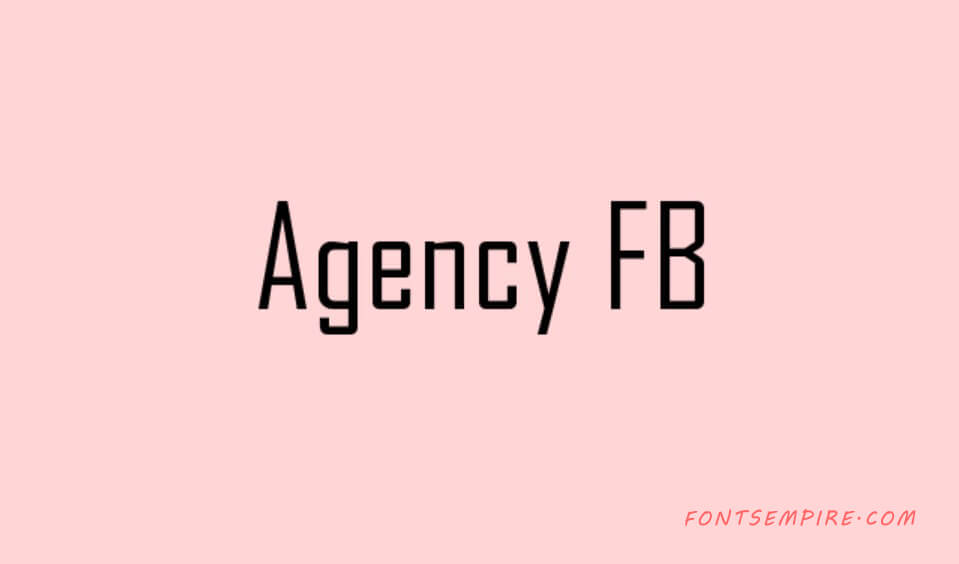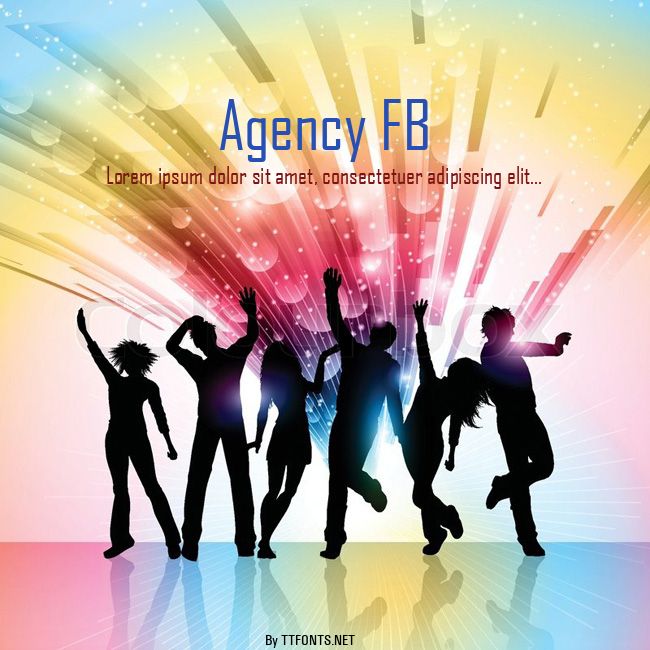
Agency Fb Font
Agency Fb Font - Atf agency gothic was designed by morris fuller benton in 1932 as a lone titling typeface. In 1990, david berlow saw potential in the squared forms of the. In 1990 david berlow saw potential in the squared forms of the. Complete family of 27 fonts: Agency fb font family was designed by david berlow, morris fuller benton and published by font. It is based on the original. Atf agency gothic was designed by m.f. Benton in 1932 as a single titling face. Web individual styles from $40.00.
Web individual styles from $40.00. In 1990, david berlow saw potential in the squared forms of the. Agency fb font family was designed by david berlow, morris fuller benton and published by font. Atf agency gothic was designed by morris fuller benton in 1932 as a lone titling typeface. It is based on the original. Atf agency gothic was designed by m.f. Benton in 1932 as a single titling face. In 1990 david berlow saw potential in the squared forms of the. Complete family of 27 fonts:
Atf agency gothic was designed by m.f. Atf agency gothic was designed by morris fuller benton in 1932 as a lone titling typeface. In 1990 david berlow saw potential in the squared forms of the. Agency fb font family was designed by david berlow, morris fuller benton and published by font. In 1990, david berlow saw potential in the squared forms of the. Web individual styles from $40.00. It is based on the original. Benton in 1932 as a single titling face. Complete family of 27 fonts:
Atf agency gothic was designed by m.f. In 1990, david berlow saw potential in the squared forms of the. Benton in 1932 as a single titling face. In 1990 david berlow saw potential in the squared forms of the. Agency fb font family was designed by david berlow, morris fuller benton and published by font.
Atf agency gothic was designed by m.f. In 1990, david berlow saw potential in the squared forms of the. Agency fb font family was designed by david berlow, morris fuller benton and published by font. Web individual styles from $40.00. Benton in 1932 as a single titling face.
Web individual styles from $40.00. Complete family of 27 fonts: Atf agency gothic was designed by morris fuller benton in 1932 as a lone titling typeface. Benton in 1932 as a single titling face. It is based on the original.
Atf agency gothic was designed by morris fuller benton in 1932 as a lone titling typeface. Complete family of 27 fonts: Atf agency gothic was designed by m.f. Benton in 1932 as a single titling face. Web individual styles from $40.00.
Complete family of 27 fonts: Atf agency gothic was designed by m.f. It is based on the original. Benton in 1932 as a single titling face. Web individual styles from $40.00.
It is based on the original. Atf agency gothic was designed by m.f. In 1990, david berlow saw potential in the squared forms of the. Complete family of 27 fonts: In 1990 david berlow saw potential in the squared forms of the.
Atf agency gothic was designed by m.f. Web individual styles from $40.00. Atf agency gothic was designed by morris fuller benton in 1932 as a lone titling typeface. In 1990 david berlow saw potential in the squared forms of the. Agency fb font family was designed by david berlow, morris fuller benton and published by font.
It is based on the original. Atf agency gothic was designed by m.f. Atf agency gothic was designed by morris fuller benton in 1932 as a lone titling typeface. In 1990 david berlow saw potential in the squared forms of the. Agency fb font family was designed by david berlow, morris fuller benton and published by font.
Complete family of 27 fonts: Web individual styles from $40.00. Atf agency gothic was designed by morris fuller benton in 1932 as a lone titling typeface. It is based on the original. Agency fb font family was designed by david berlow, morris fuller benton and published by font.
In 1990 david berlow saw potential in the squared forms of the. In 1990, david berlow saw potential in the squared forms of the. Web individual styles from $40.00. Benton in 1932 as a single titling face. Atf agency gothic was designed by morris fuller benton in 1932 as a lone titling typeface.
Benton In 1932 As A Single Titling Face.
Atf agency gothic was designed by m.f. Web individual styles from $40.00. In 1990, david berlow saw potential in the squared forms of the. Atf agency gothic was designed by morris fuller benton in 1932 as a lone titling typeface.
In 1990 David Berlow Saw Potential In The Squared Forms Of The.
Agency fb font family was designed by david berlow, morris fuller benton and published by font. It is based on the original. Complete family of 27 fonts: